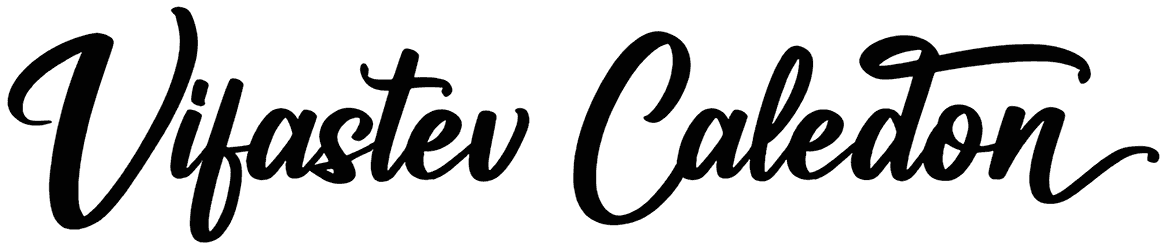
Vifastev Caledon Font
A cursive script font such as Vifastev Caledon can be your savior in difficult projects and lets you surprise the audience with the high-quality of your movie posters, stickers, flyers, social media posts, or product packaging. This masterpiece widens your selection range by offering two distinctive styles to you.